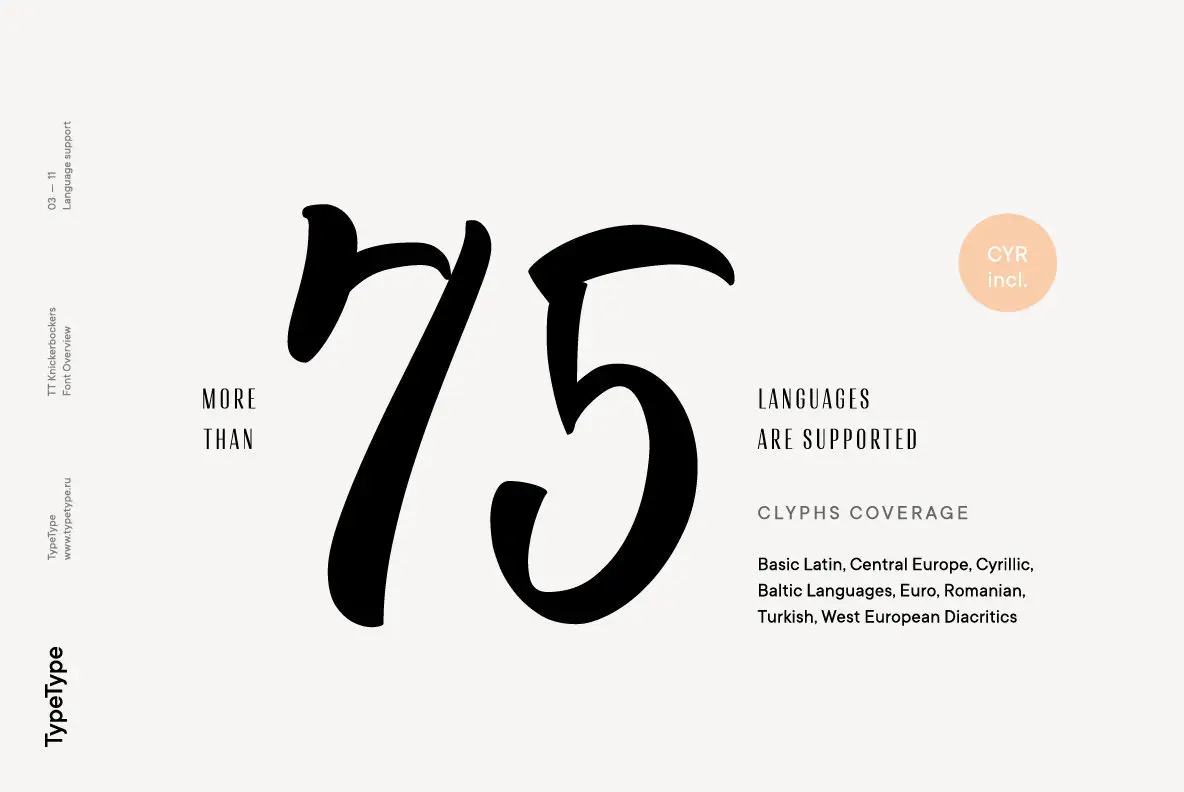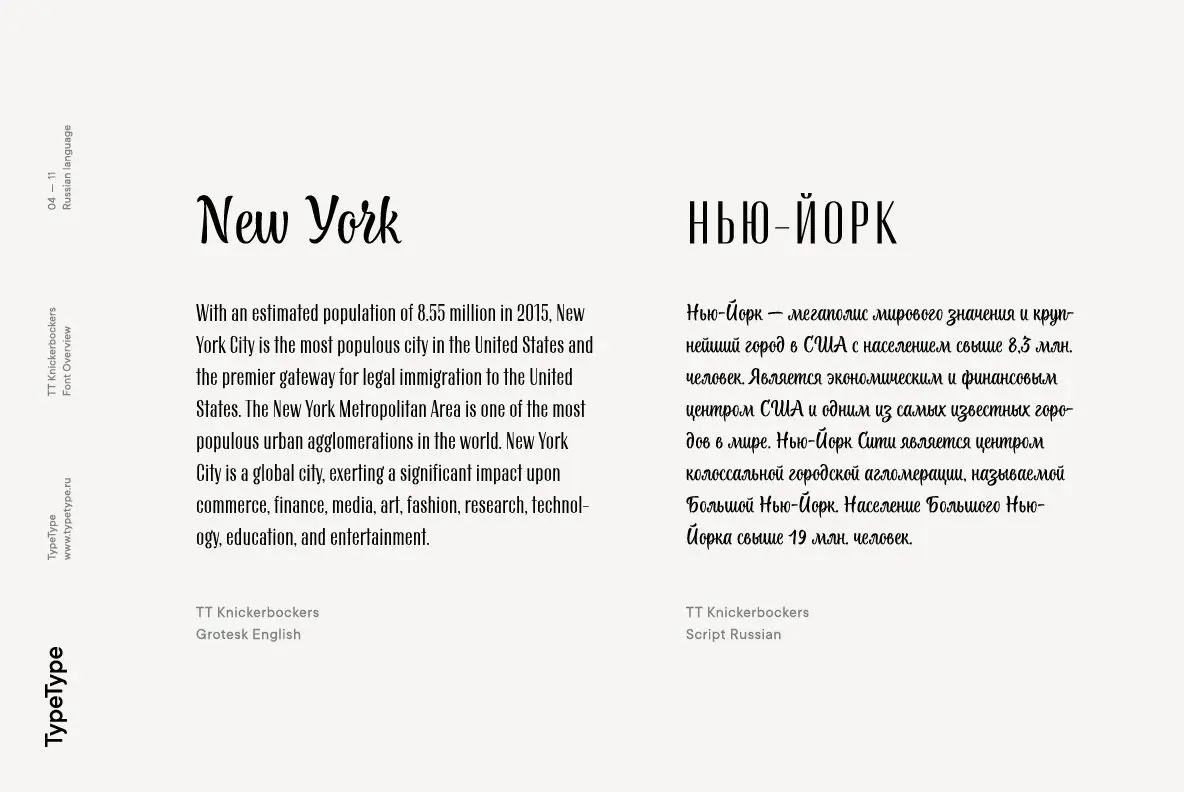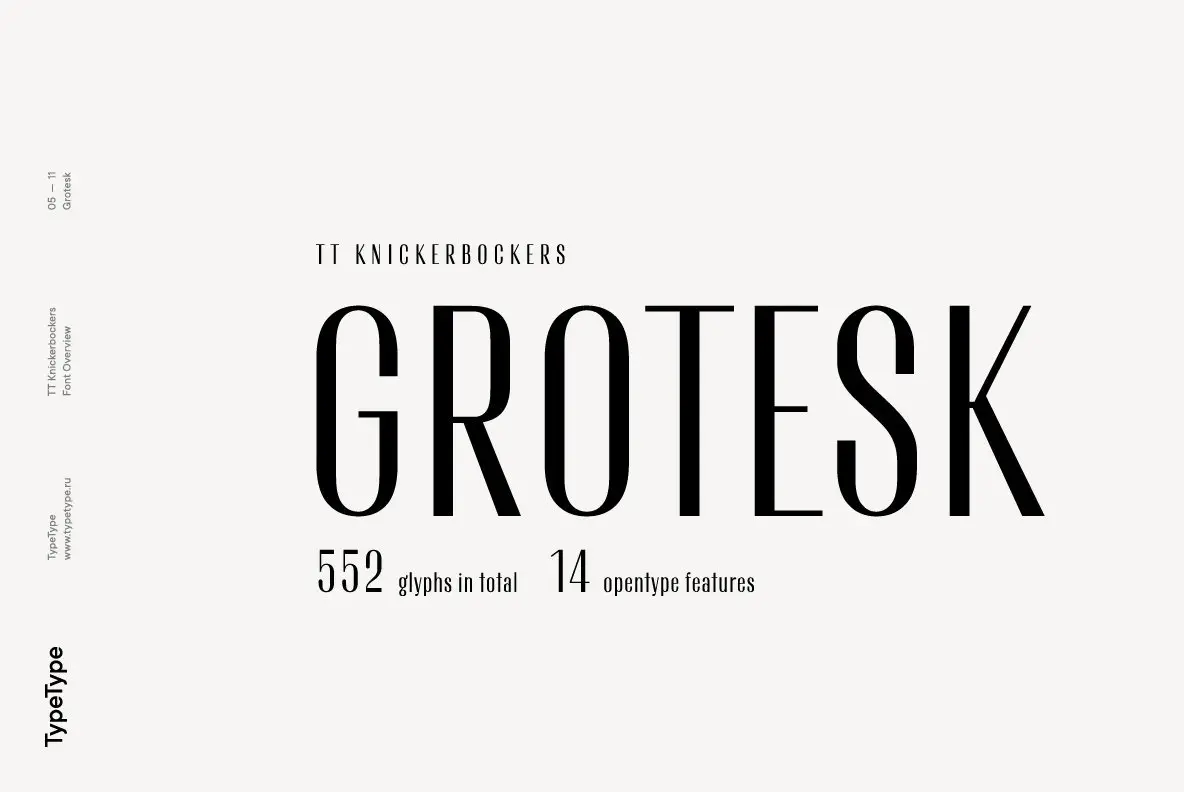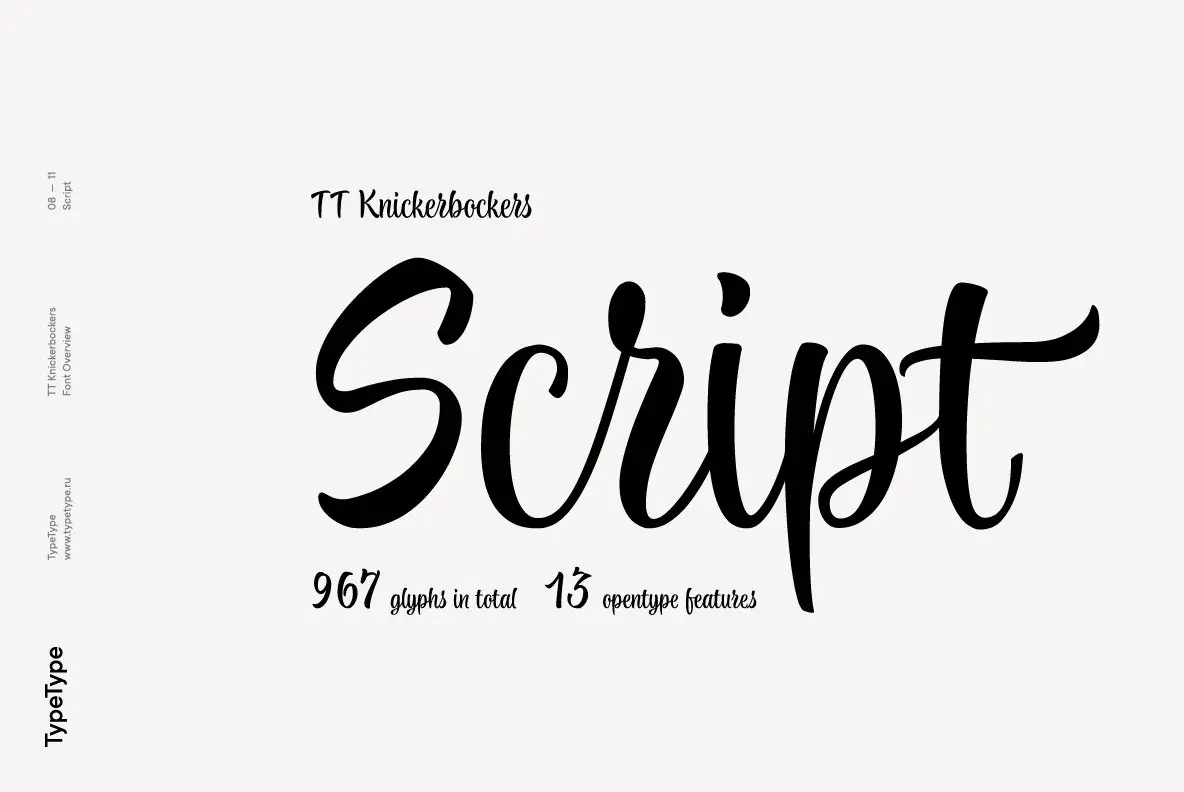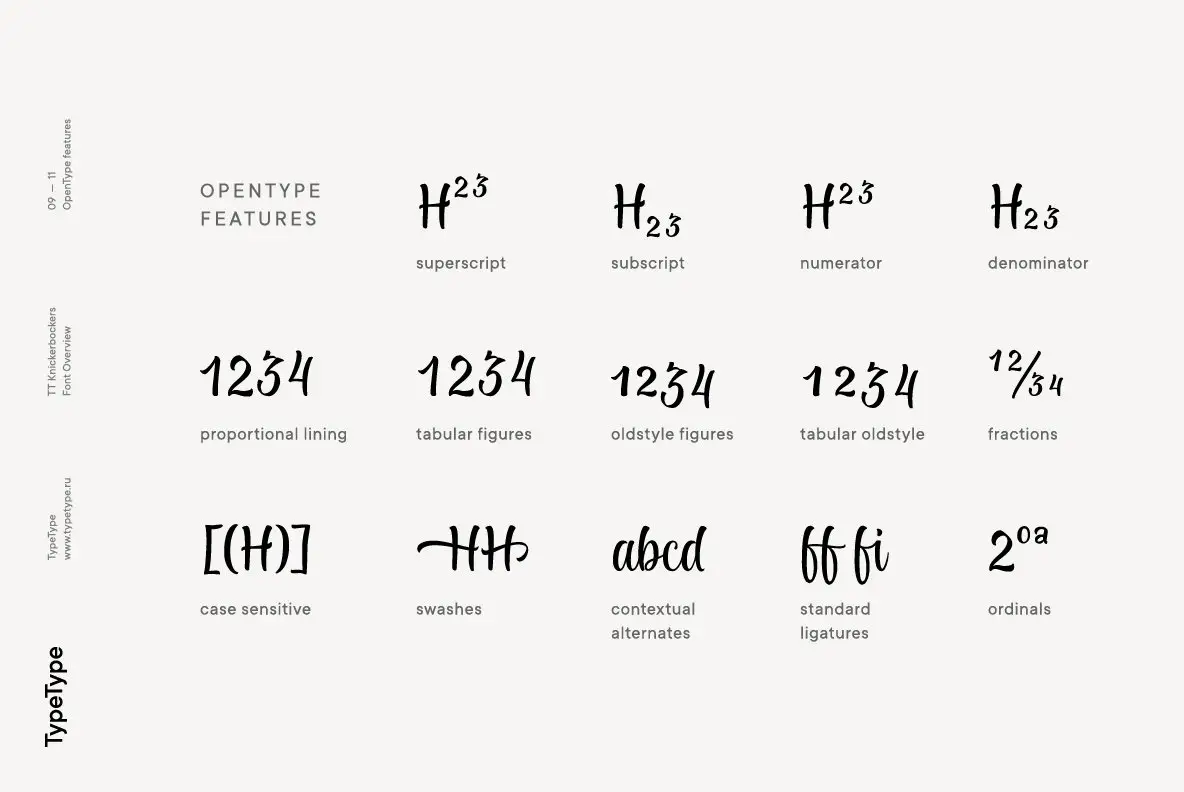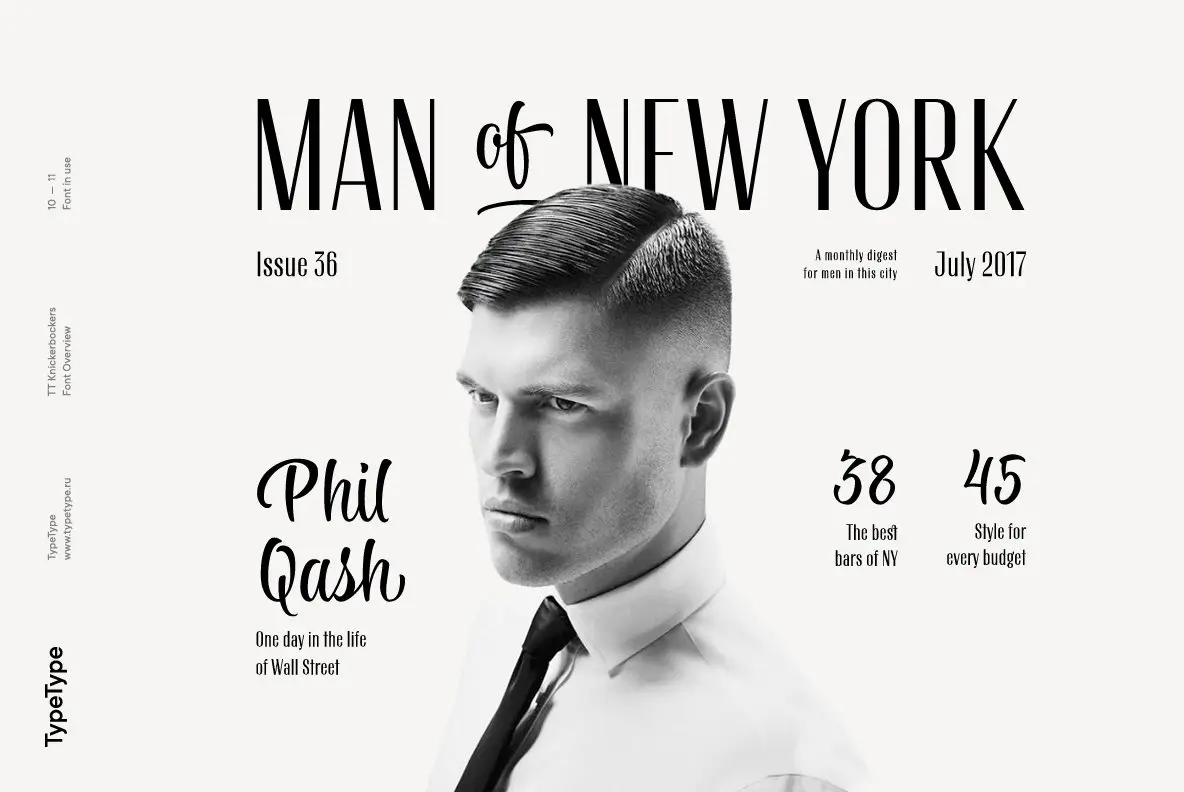
Knickerbocker Font . The font is available in all formats (tt knickerbockers woff2, tt knickerbockers woff, tt knickerbockers ttf,. If you want to use the font in published or commercial projects you will have to buy it:. Tt knickerbockers script is a bright and at the same time a little restrained brushpen script with a slight touch of aristocracy. Tt knickerbockers font family was designed by yuliana morgun, nadezhda polomoshnova, typetype team and published. Tt knickerbockers—contrast font pair dedicated to new york with its multiculturalism, historicity, creativity, energy, and to its inhabitants. This is a trial font for personal use only.
If you want to use the font in published or commercial projects you will have to buy it:. Tt knickerbockers—contrast font pair dedicated to new york with its multiculturalism, historicity, creativity, energy, and to its inhabitants. Tt knickerbockers font family was designed by yuliana morgun, nadezhda polomoshnova, typetype team and published. The font is available in all formats (tt knickerbockers woff2, tt knickerbockers woff, tt knickerbockers ttf,. Tt knickerbockers script is a bright and at the same time a little restrained brushpen script with a slight touch of aristocracy. This is a trial font for personal use only.
Knickerbocker Font The font is available in all formats (tt knickerbockers woff2, tt knickerbockers woff, tt knickerbockers ttf,. Tt knickerbockers font family was designed by yuliana morgun, nadezhda polomoshnova, typetype team and published. This is a trial font for personal use only. If you want to use the font in published or commercial projects you will have to buy it:. Tt knickerbockers script is a bright and at the same time a little restrained brushpen script with a slight touch of aristocracy. The font is available in all formats (tt knickerbockers woff2, tt knickerbockers woff, tt knickerbockers ttf,. Tt knickerbockers—contrast font pair dedicated to new york with its multiculturalism, historicity, creativity, energy, and to its inhabitants.
TT Knickerbockers font free download for WEB Knickerbocker Font If you want to use the font in published or commercial projects you will have to buy it:. Tt knickerbockers—contrast font pair dedicated to new york with its multiculturalism, historicity, creativity, energy, and to its inhabitants. Tt knickerbockers font family was designed by yuliana morgun, nadezhda polomoshnova, typetype team and published. This is a trial font for personal use only.. Knickerbocker Font.
TT Knickerbockers font free download • Knickerbocker Font If you want to use the font in published or commercial projects you will have to buy it:. Tt knickerbockers script is a bright and at the same time a little restrained brushpen script with a slight touch of aristocracy. Tt knickerbockers—contrast font pair dedicated to new york with its multiculturalism, historicity, creativity, energy, and to its inhabitants. Tt knickerbockers. Knickerbocker Font.
TT Knickerbockers font free download for WEB Knickerbocker Font The font is available in all formats (tt knickerbockers woff2, tt knickerbockers woff, tt knickerbockers ttf,. Tt knickerbockers—contrast font pair dedicated to new york with its multiculturalism, historicity, creativity, energy, and to its inhabitants. If you want to use the font in published or commercial projects you will have to buy it:. Tt knickerbockers script is a bright and at. Knickerbocker Font.
TT Knickerbockers on Behance Knickerbocker Font Tt knickerbockers font family was designed by yuliana morgun, nadezhda polomoshnova, typetype team and published. The font is available in all formats (tt knickerbockers woff2, tt knickerbockers woff, tt knickerbockers ttf,. If you want to use the font in published or commercial projects you will have to buy it:. Tt knickerbockers script is a bright and at the same time. Knickerbocker Font.
TT Knickerbockers font & Desktop font « MyFonts Myfonts, Fonts Knickerbocker Font The font is available in all formats (tt knickerbockers woff2, tt knickerbockers woff, tt knickerbockers ttf,. Tt knickerbockers font family was designed by yuliana morgun, nadezhda polomoshnova, typetype team and published. Tt knickerbockers script is a bright and at the same time a little restrained brushpen script with a slight touch of aristocracy. If you want to use the font. Knickerbocker Font.
TT Knickerbockers font free download • Knickerbocker Font Tt knickerbockers—contrast font pair dedicated to new york with its multiculturalism, historicity, creativity, energy, and to its inhabitants. This is a trial font for personal use only. Tt knickerbockers script is a bright and at the same time a little restrained brushpen script with a slight touch of aristocracy. If you want to use the font in published or commercial. Knickerbocker Font.
TT Knickerbockers Font YouWorkForThem Knickerbocker Font This is a trial font for personal use only. Tt knickerbockers script is a bright and at the same time a little restrained brushpen script with a slight touch of aristocracy. The font is available in all formats (tt knickerbockers woff2, tt knickerbockers woff, tt knickerbockers ttf,. Tt knickerbockers—contrast font pair dedicated to new york with its multiculturalism, historicity, creativity,. Knickerbocker Font.
TT Knickerbockers Font FontPath Knickerbocker Font Tt knickerbockers script is a bright and at the same time a little restrained brushpen script with a slight touch of aristocracy. The font is available in all formats (tt knickerbockers woff2, tt knickerbockers woff, tt knickerbockers ttf,. If you want to use the font in published or commercial projects you will have to buy it:. Tt knickerbockers—contrast font pair. Knickerbocker Font.
TT Knickerbockers Font YouWorkForThem Knickerbocker Font Tt knickerbockers font family was designed by yuliana morgun, nadezhda polomoshnova, typetype team and published. If you want to use the font in published or commercial projects you will have to buy it:. This is a trial font for personal use only. Tt knickerbockers—contrast font pair dedicated to new york with its multiculturalism, historicity, creativity, energy, and to its inhabitants.. Knickerbocker Font.